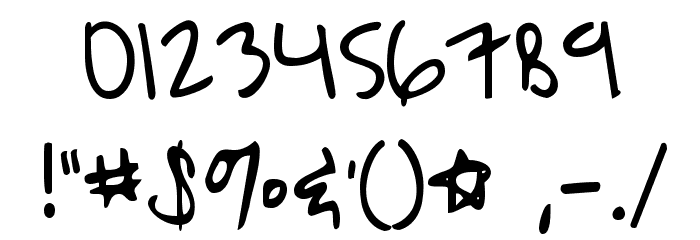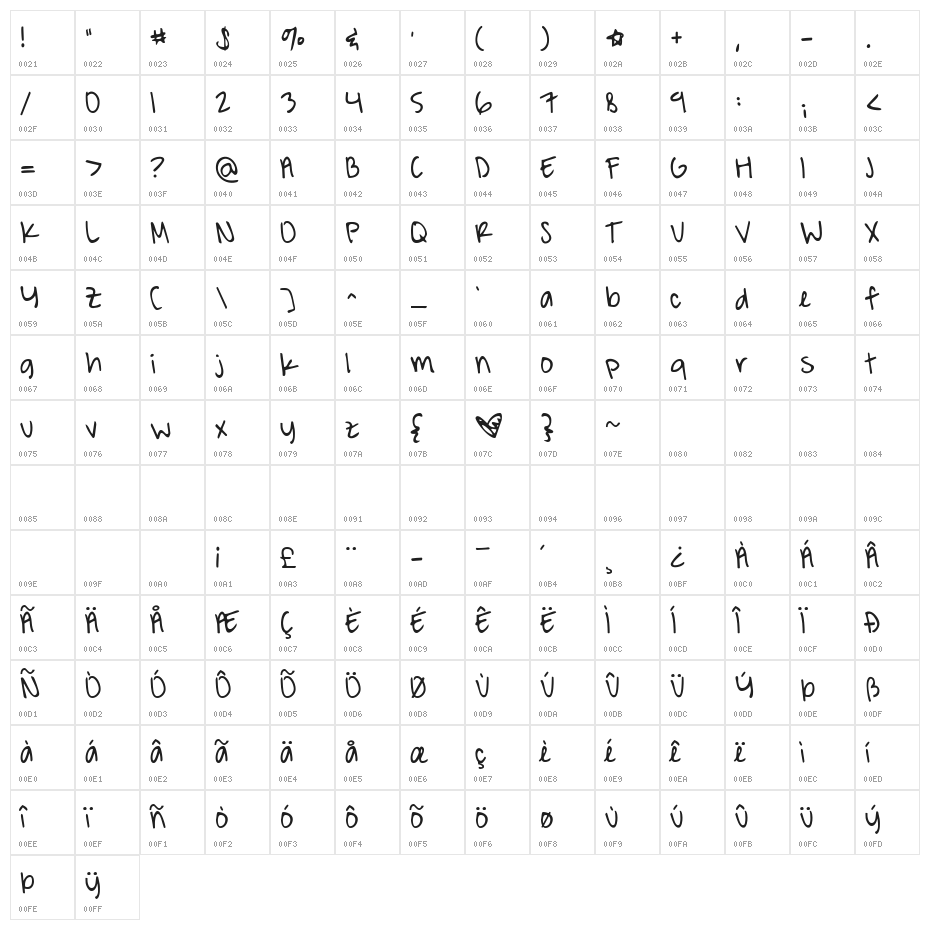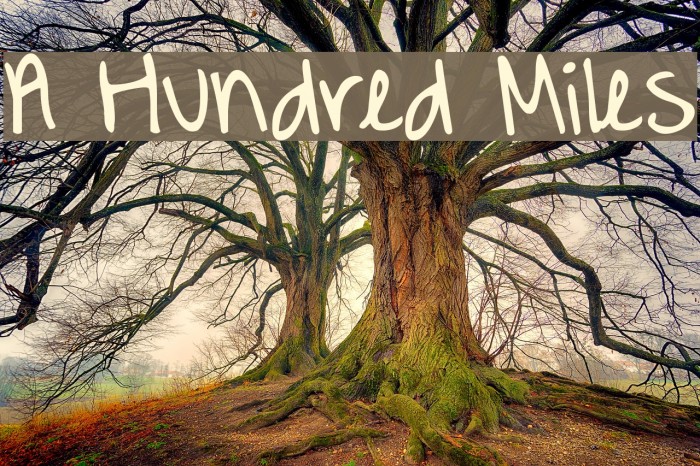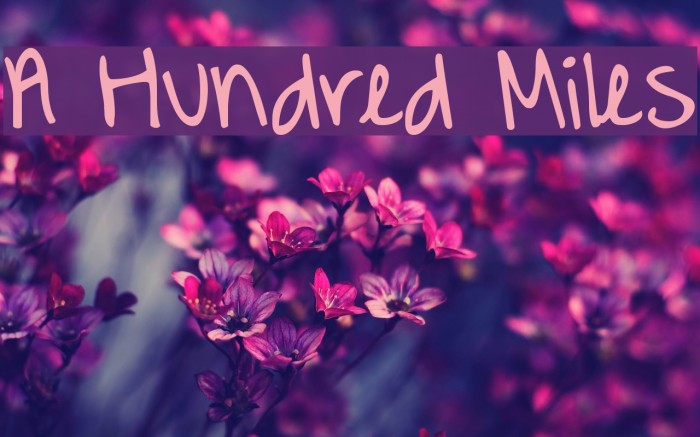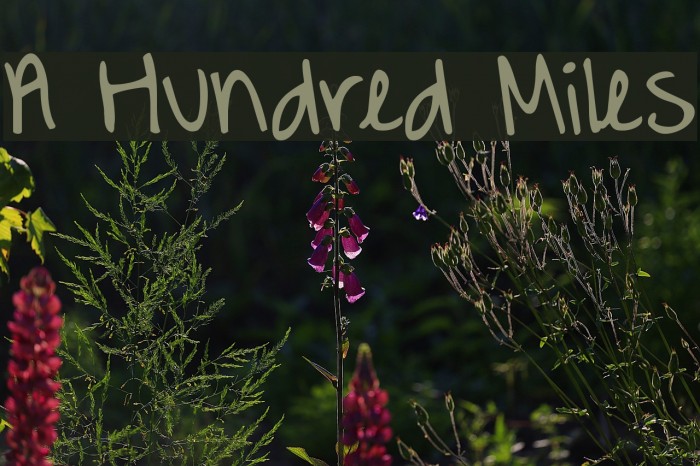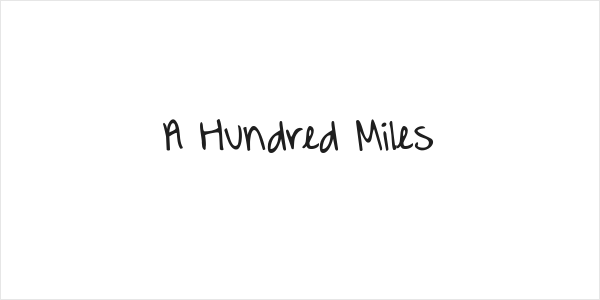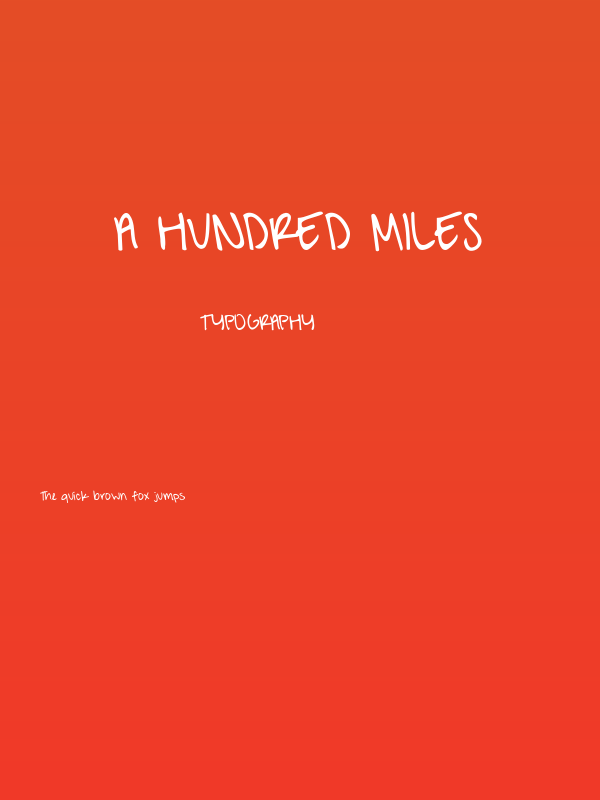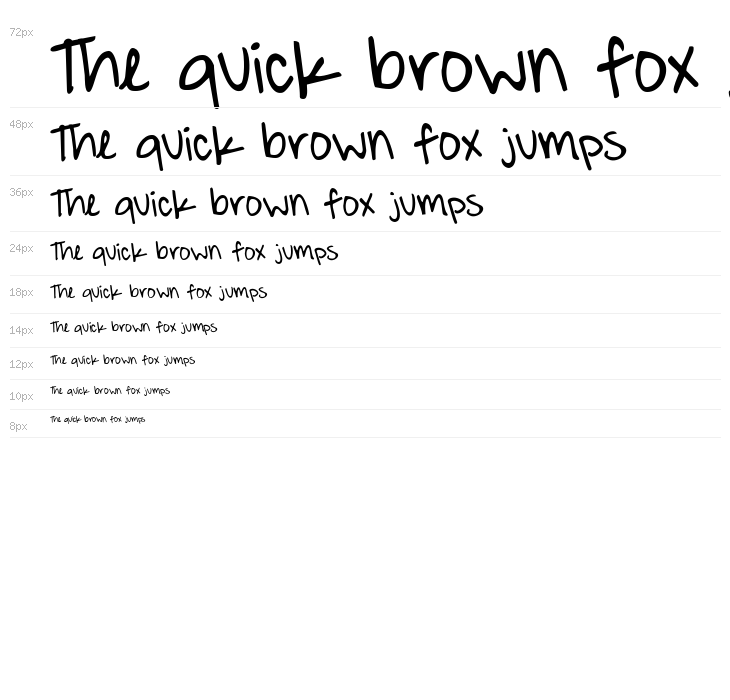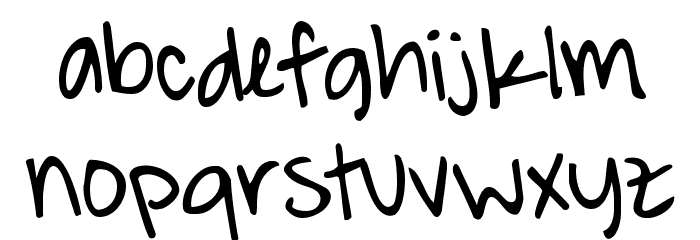
A Hundred Miles Font
A Hundred Miles Description
This font exudes a playful and casual handwritten style, characterized by its smooth, flowing lines and slightly irregular shapes. The letters are bold and rounded, giving it a friendly and approachable appearance. The uppercase and lowercase letters maintain a consistent style, with a slight slant that adds to its informal charm. Numbers and special characters are designed with the same playful touch, making them easily legible and visually appealing. This font is perfect for projects that require a personal, human touch, such as greeting cards, invitations, or informal branding.
| Use Case | Headlines, Informal text, Personal projects |
| Proposed Projects | Ideal for greeting cards, invitations, personal branding, and informal communication. |